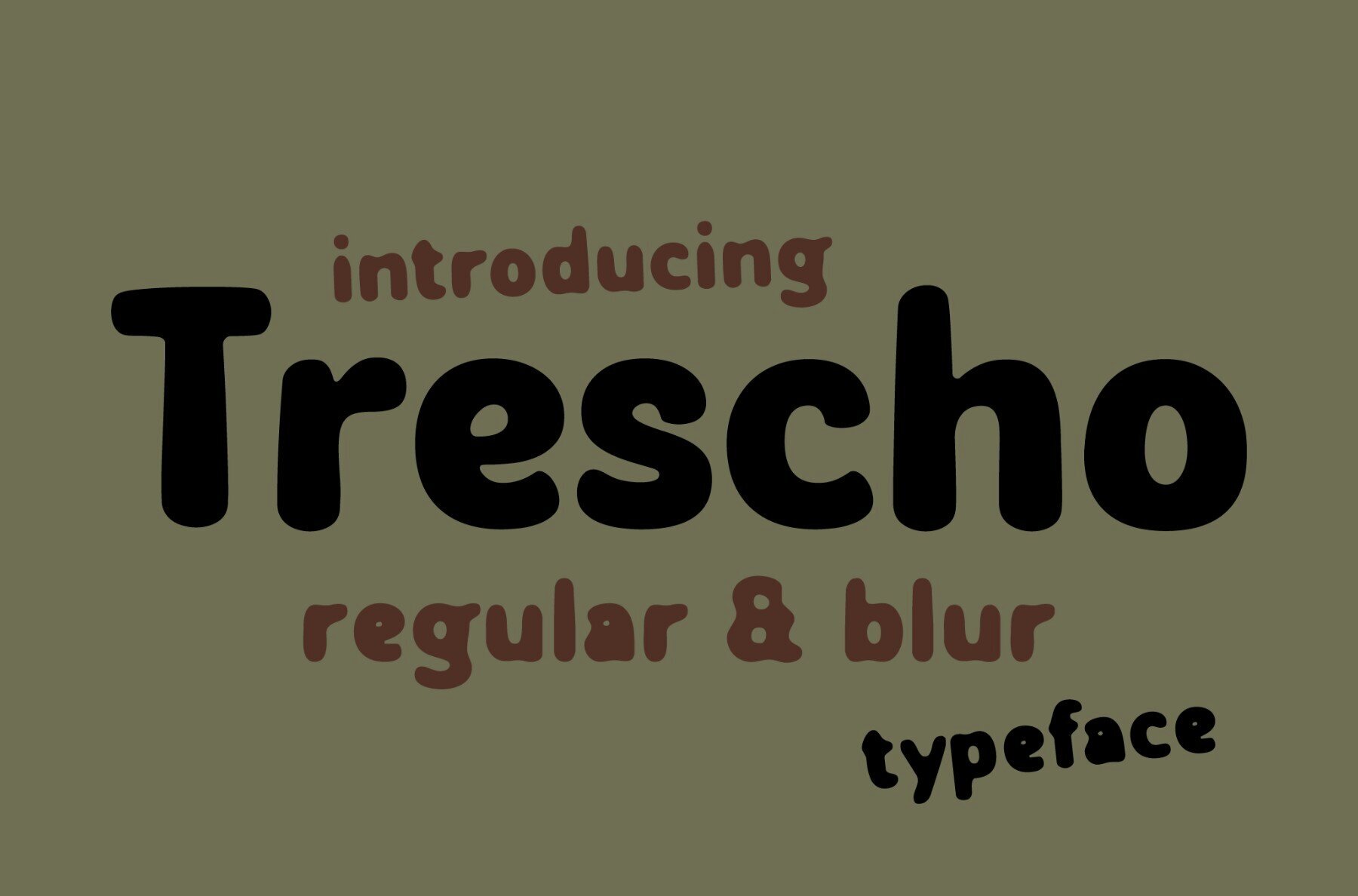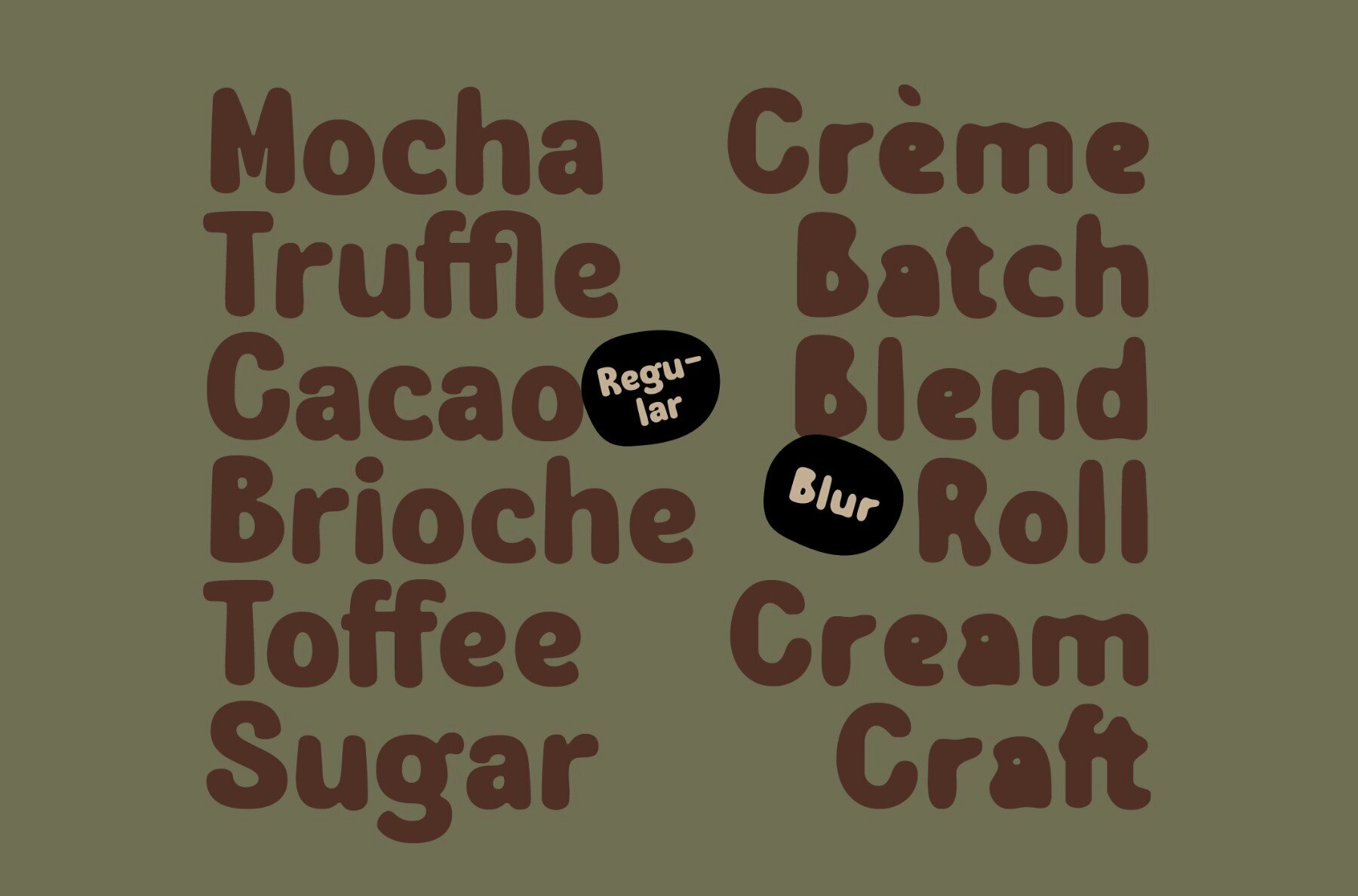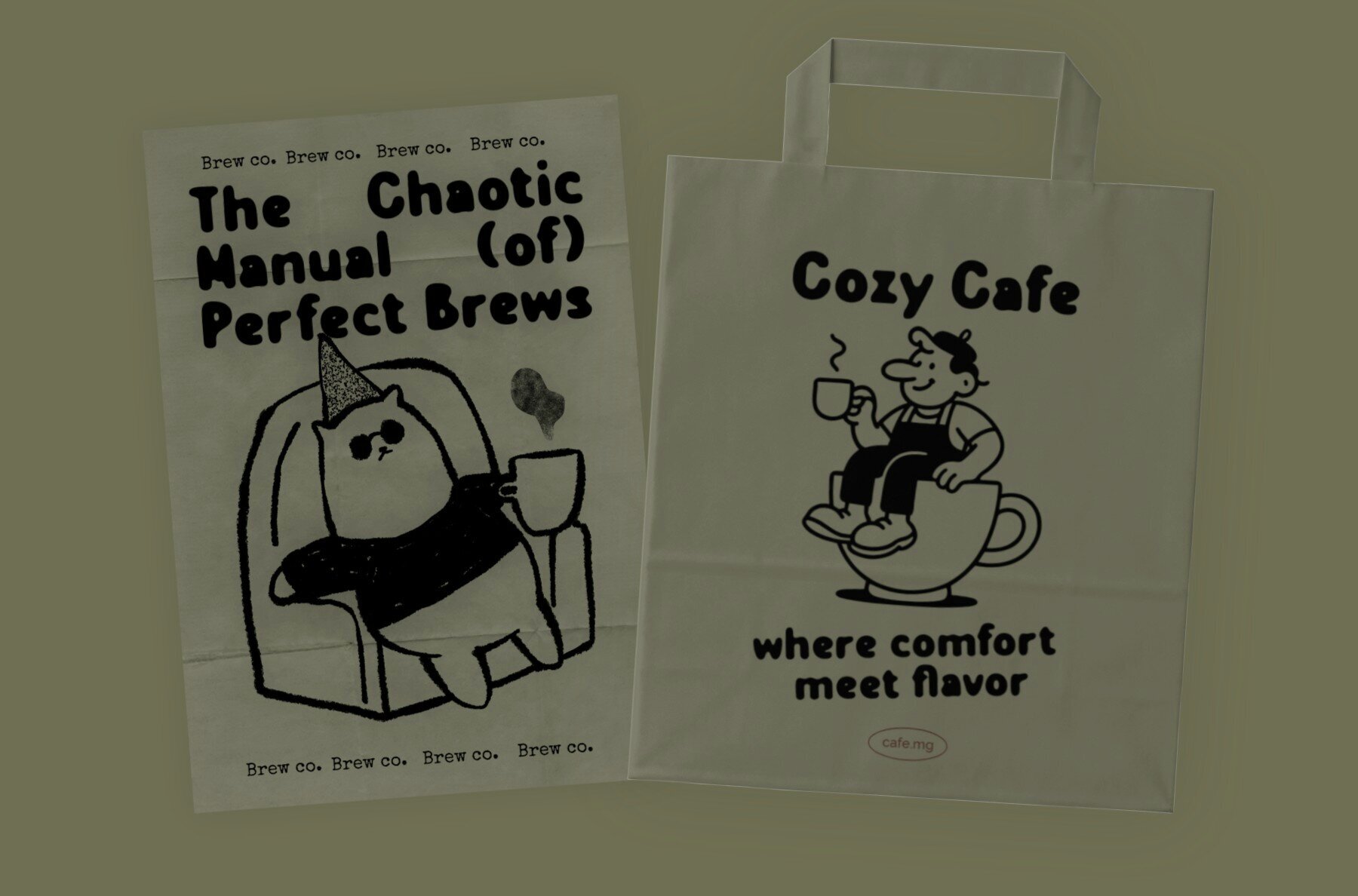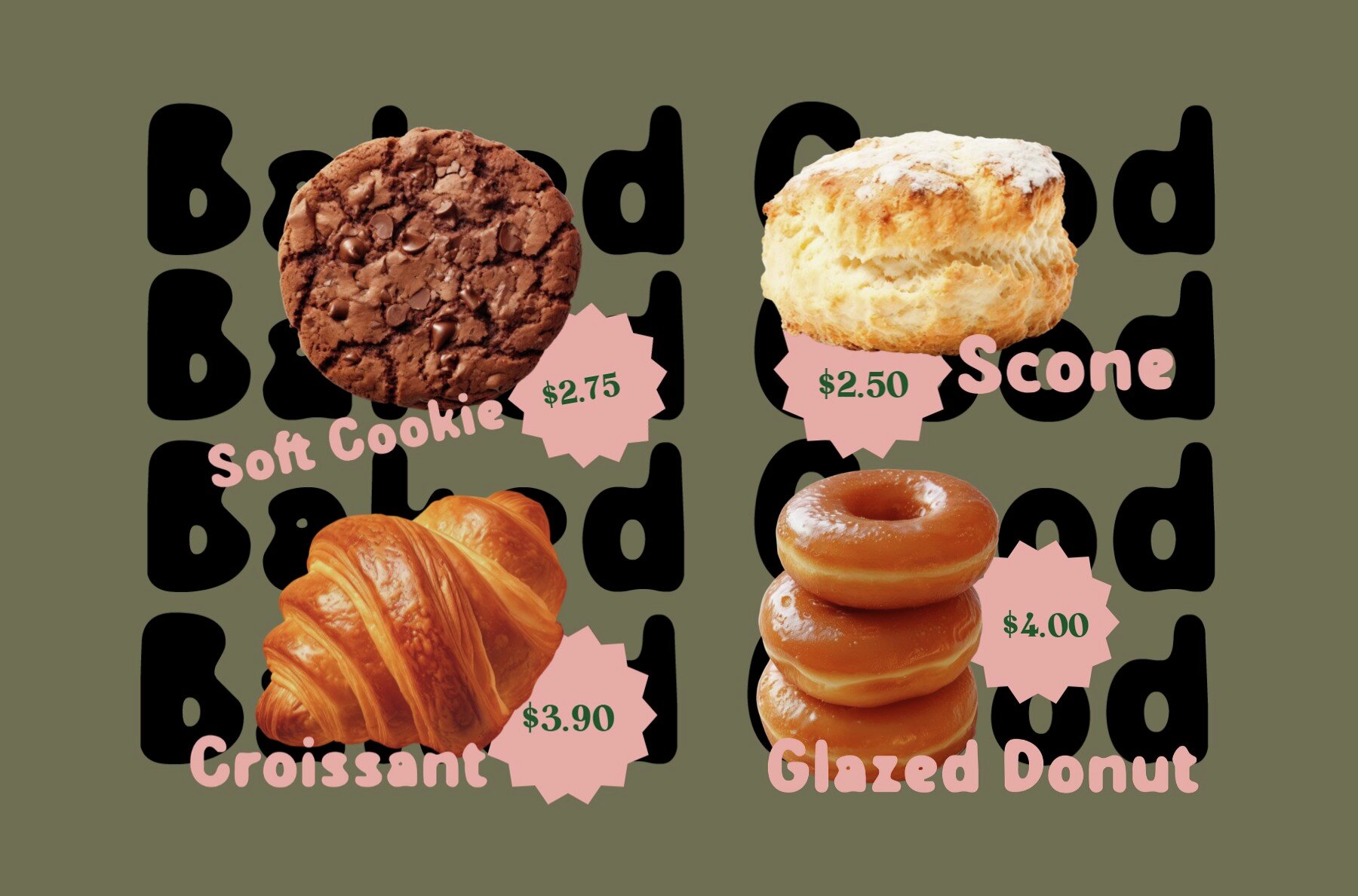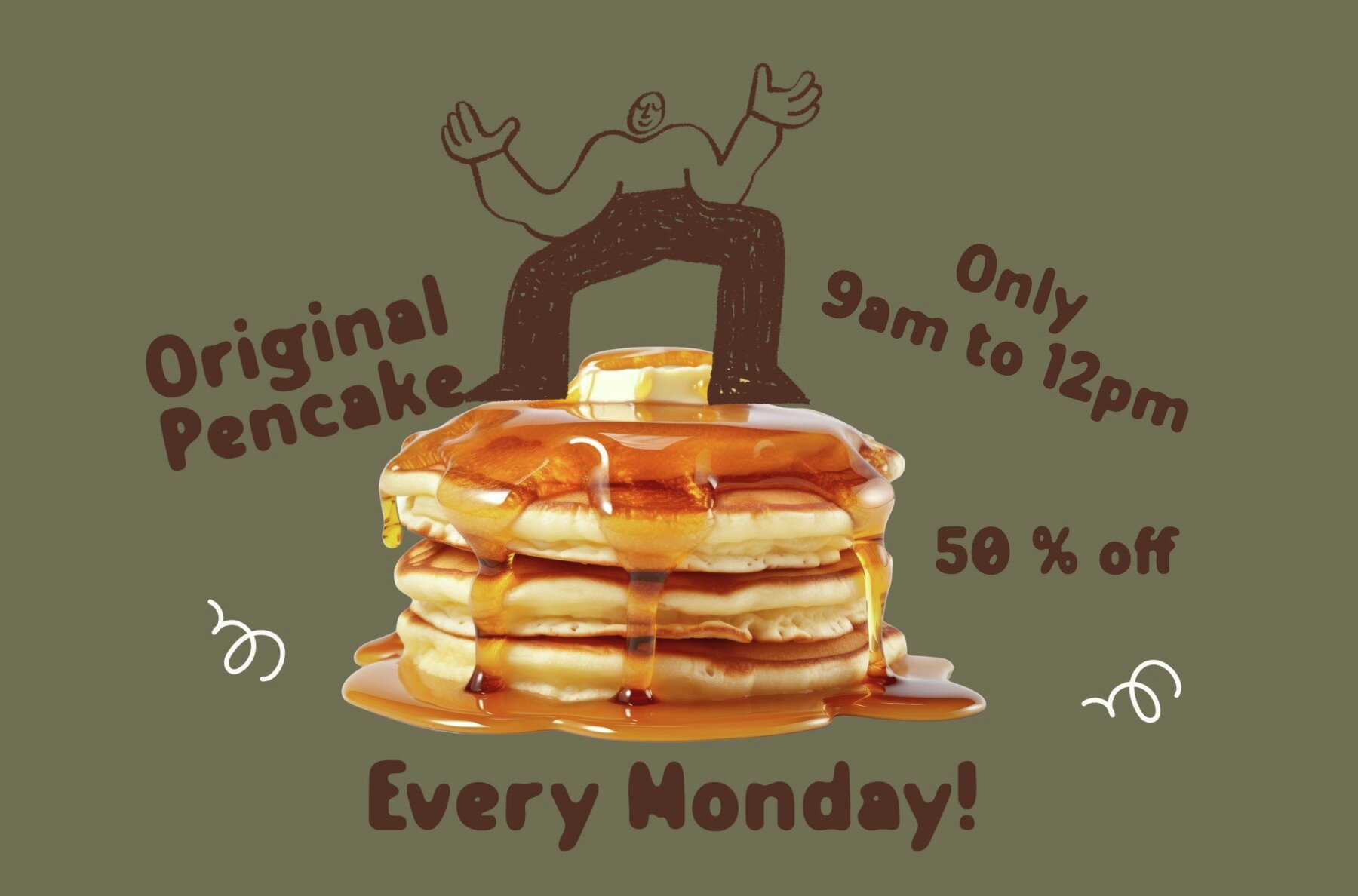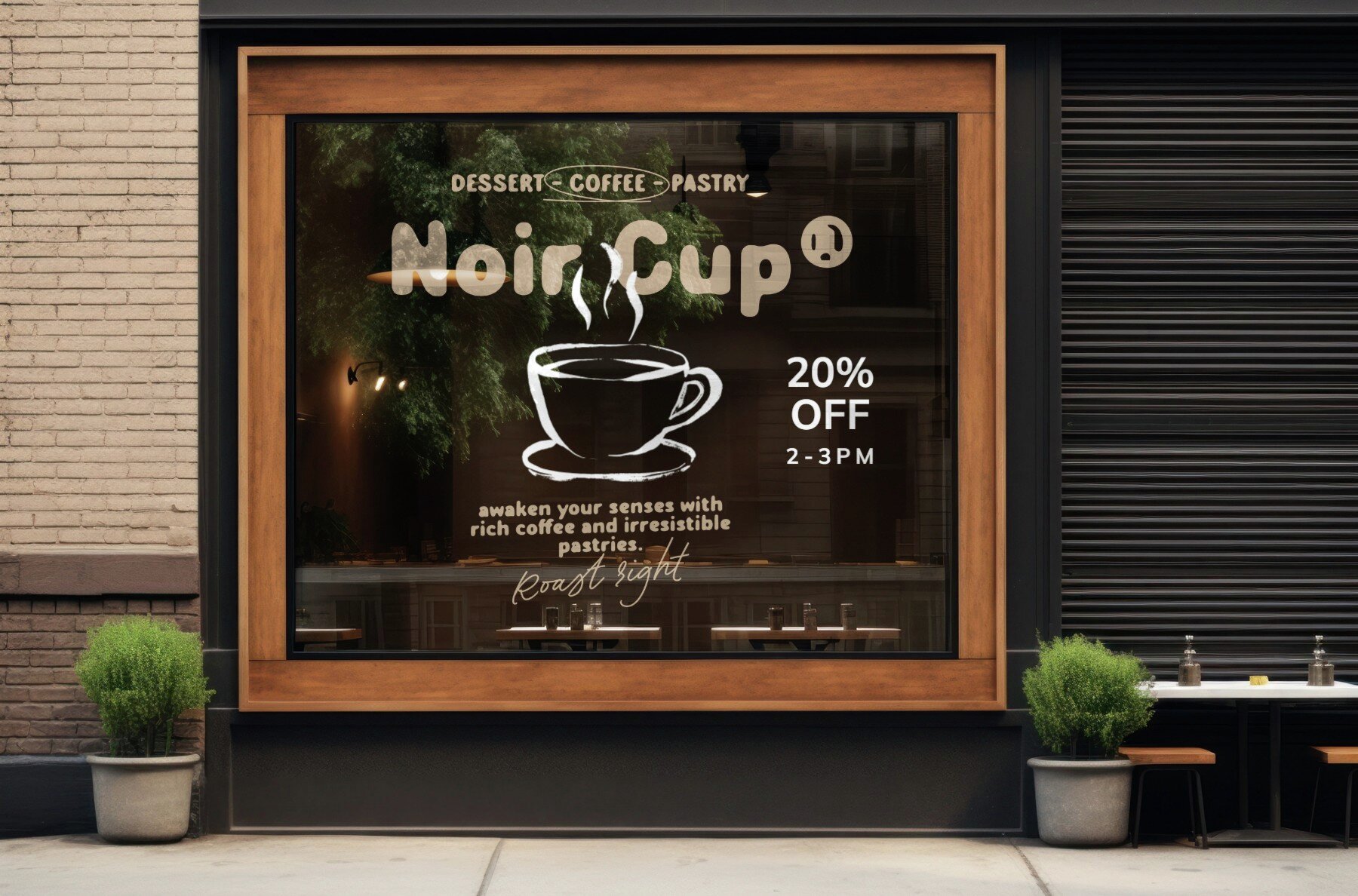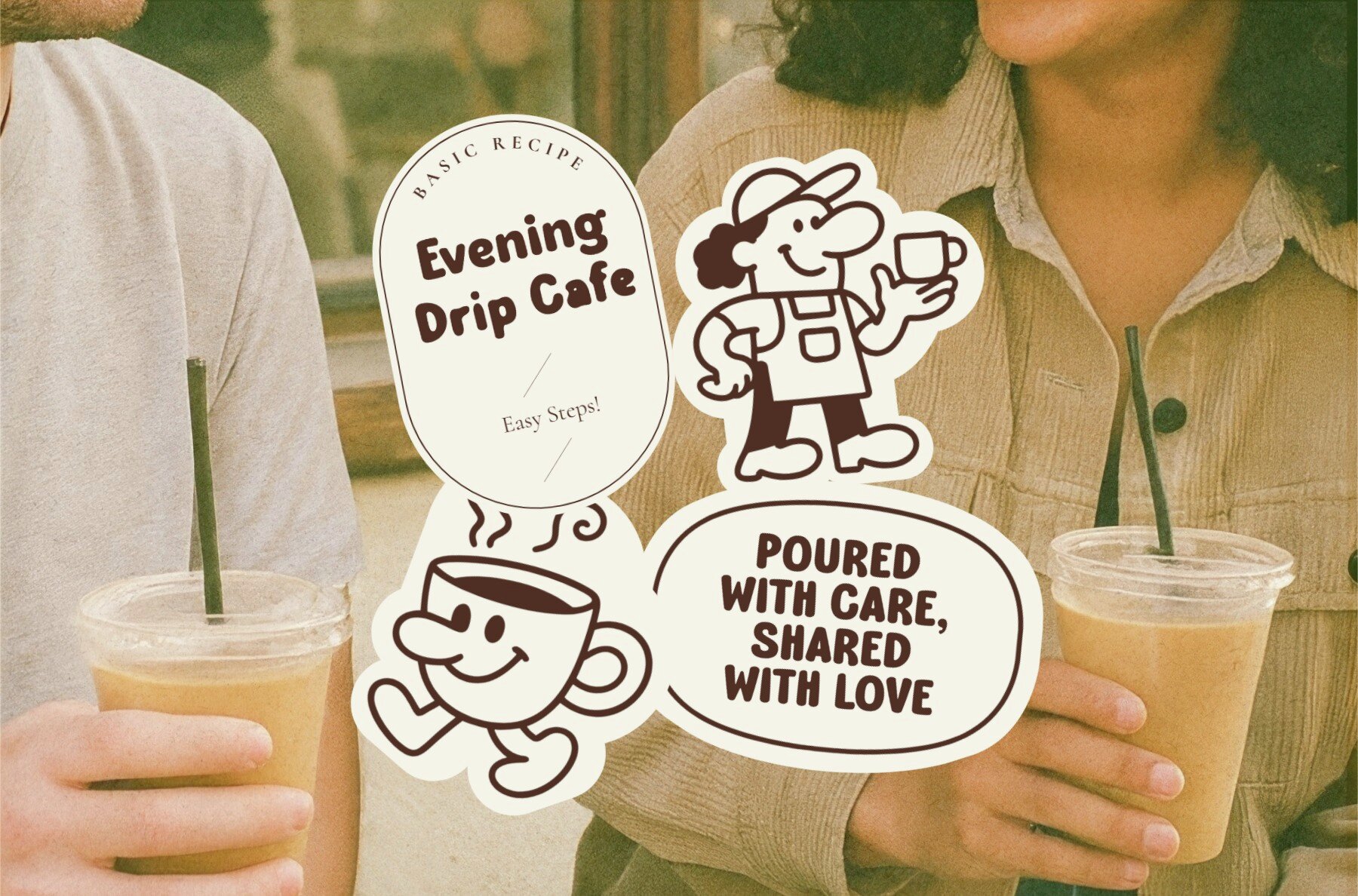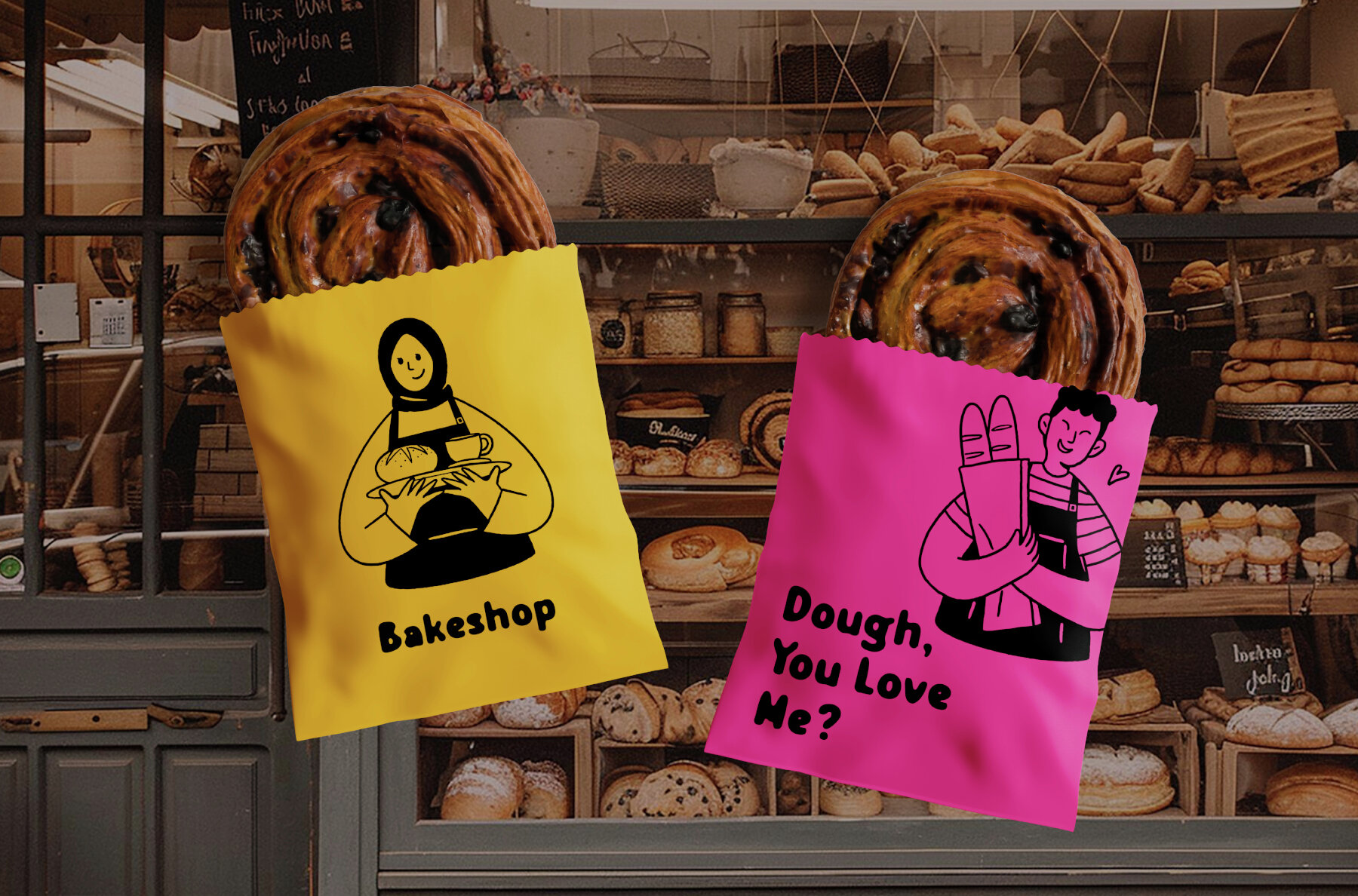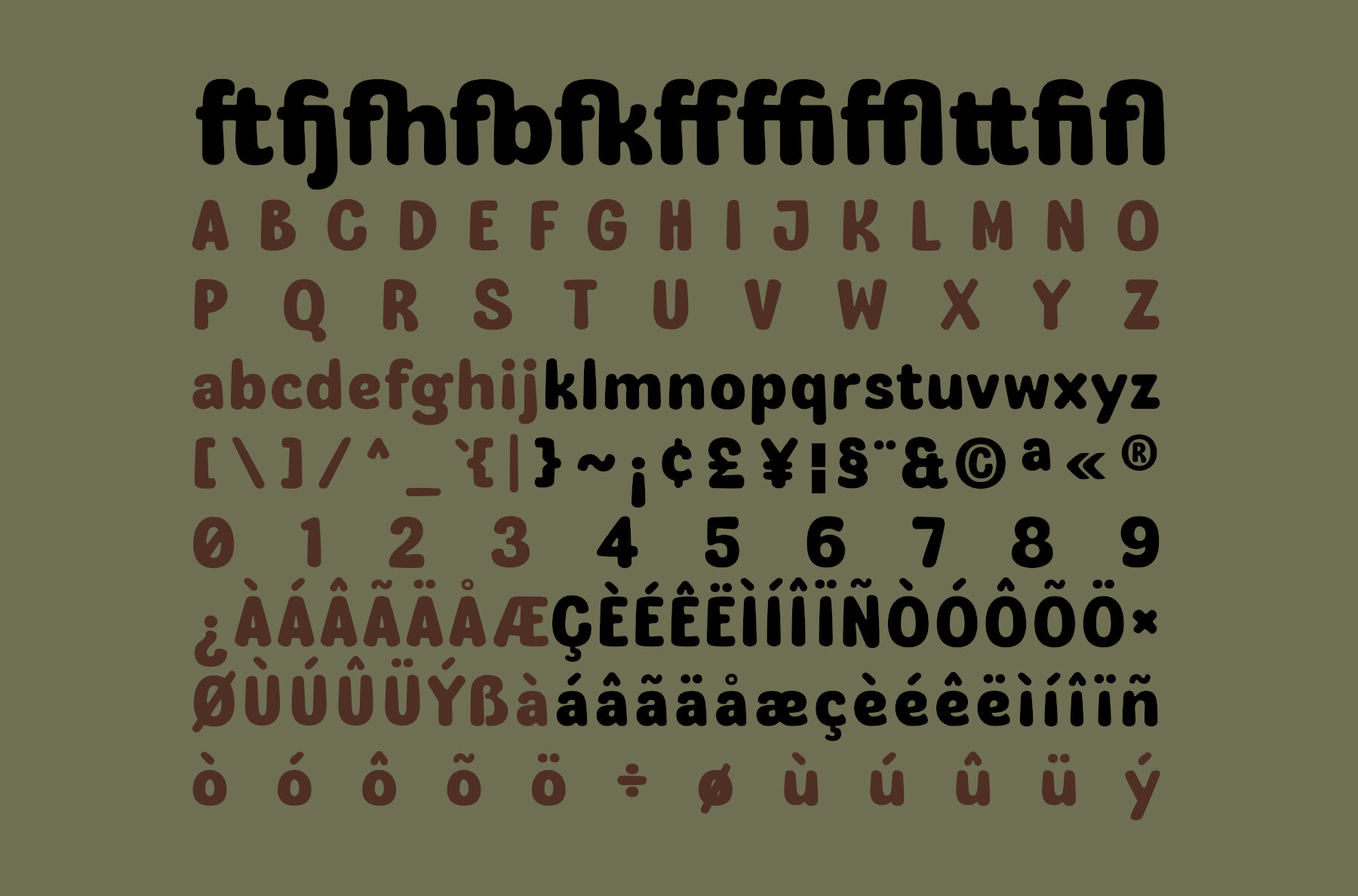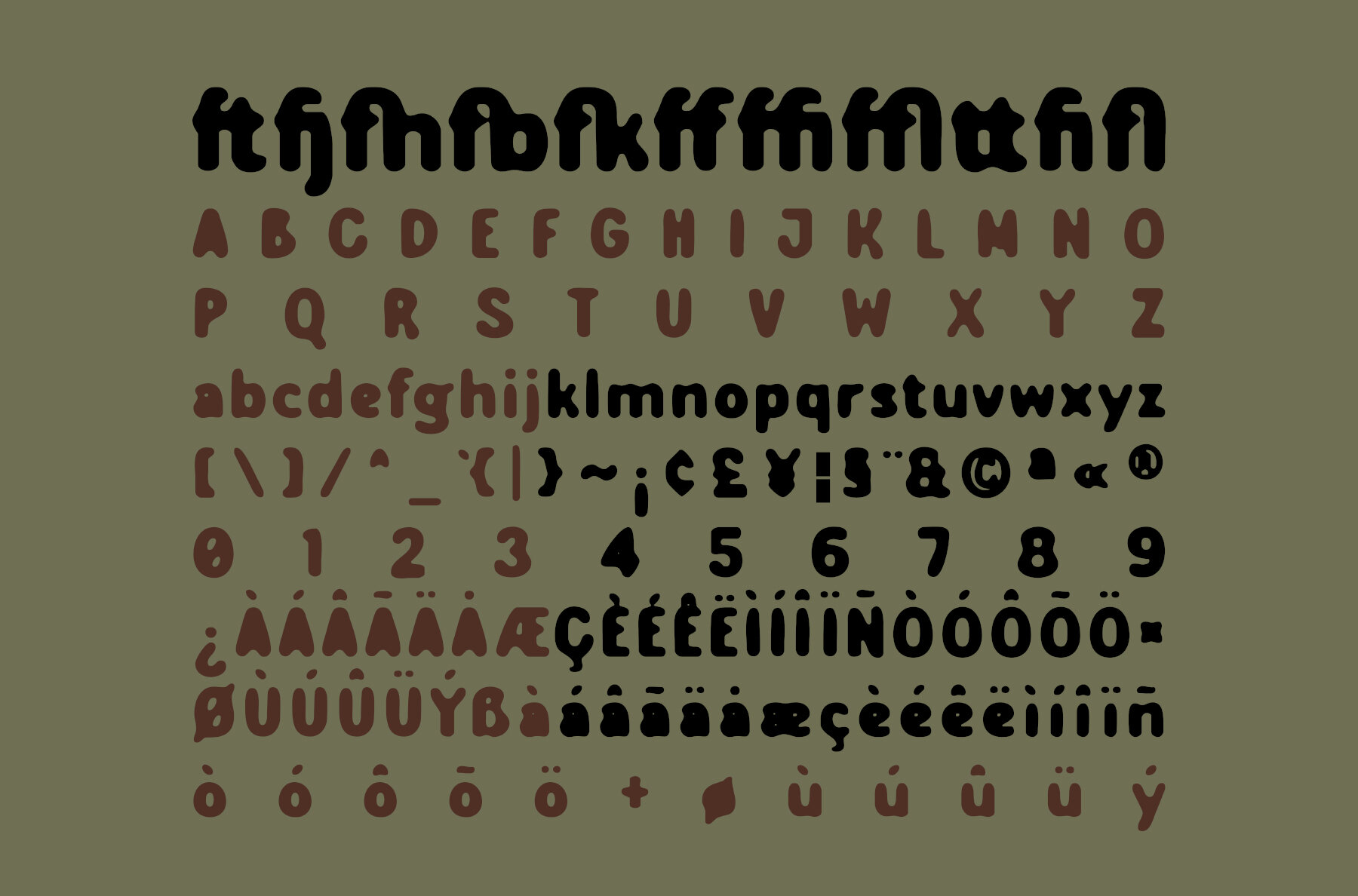
Trescho Font
Trescho brings a playful, inviting touch to your creative projects. This rounded display font features soft, bubbly edges and a friendly character, making it ideal for children’s themes, branding, posters, packaging, and social media graphics. Its handcrafted feel delivers warmth and originality, lending a unique personality to every design. Trescho is available in two distinct styles: Regular and Blur. Use the clean Regular version for a polished look, or choose Blur to introduce a soft, dreamy atmosphere—perfect for playful or abstract visuals. The font supports uppercase and lowercase letters, numbers, punctuation, and multiple languages, ensuring flexibility across both print and digital media.Trescho Rounded Display Typeface